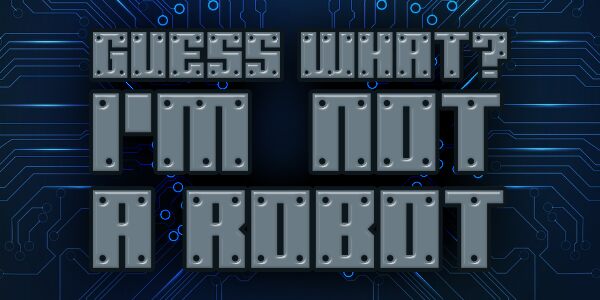
Guess What, I'm Not a Robot Screws Regular
Guess What, I'm Not a Robot Screws is a bold display font that commands attention. Designed by Chequered Ink, it stands out with its techno style and semi-expanded width, presenting an aesthetic that is both industrial and futuristic. The font's design incorporates elements reminiscent of mechanical parts, giving it a sturdy and engineered appearance.
The robust weight of Guess What, I'm Not a Robot Screws makes it ideal for titles, headers, and any project that requires a touch of modernity with an edge. Its distinctive look is particularly well-suited for themes related to technology, robotics, gaming or science fiction.
Visual inspection reveals the clever use of negative space and geometric precision in each character. This font doesn't just convey messages; it does so with personality—perfect for designers looking to add a unique voice to their creative endeavors.
In summary, Guess What, I'm Not a Robot Screws offers versatility while making a strong visual impact—proving itself as an asset for various design projects where standing out is not just an option but a necessity.